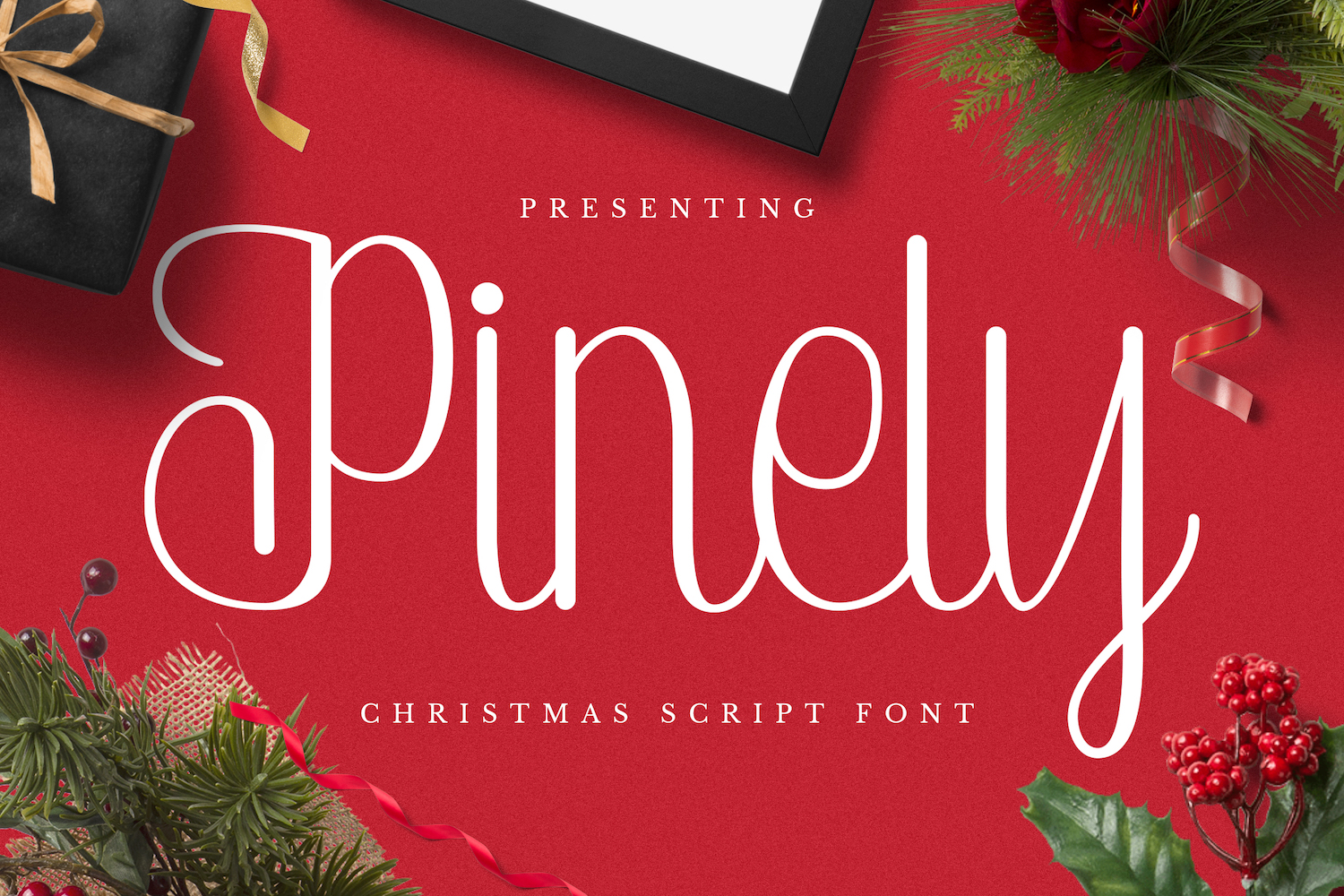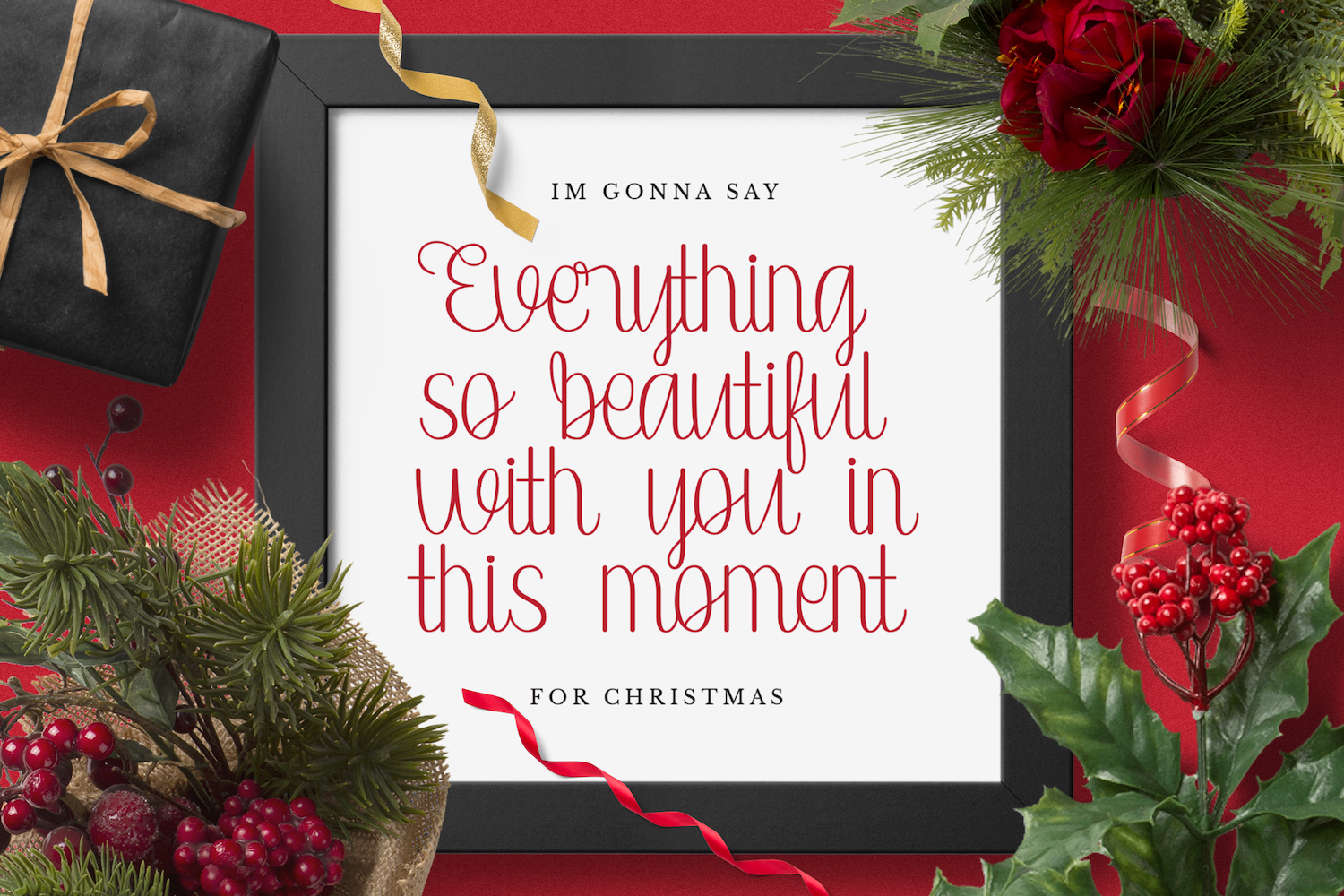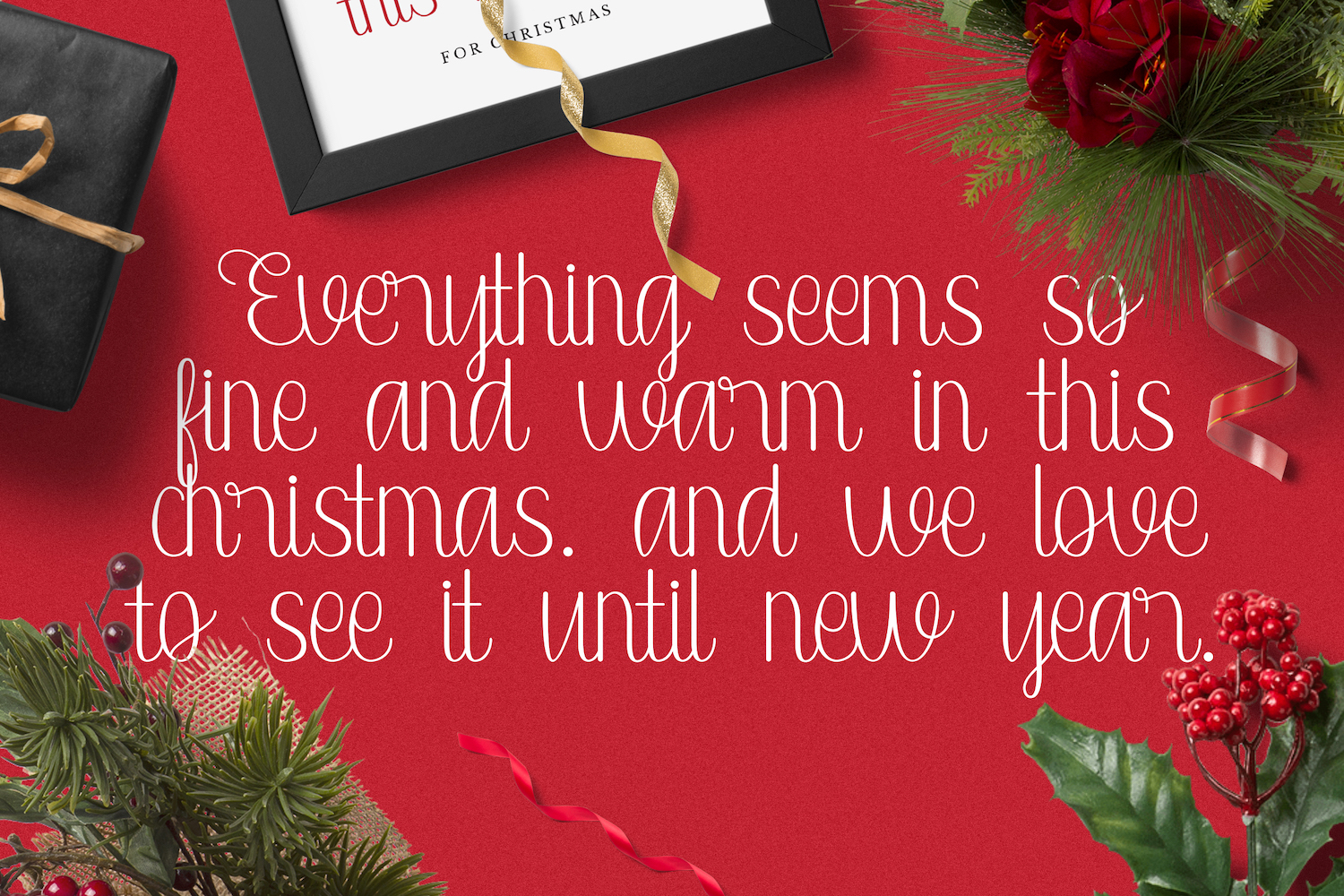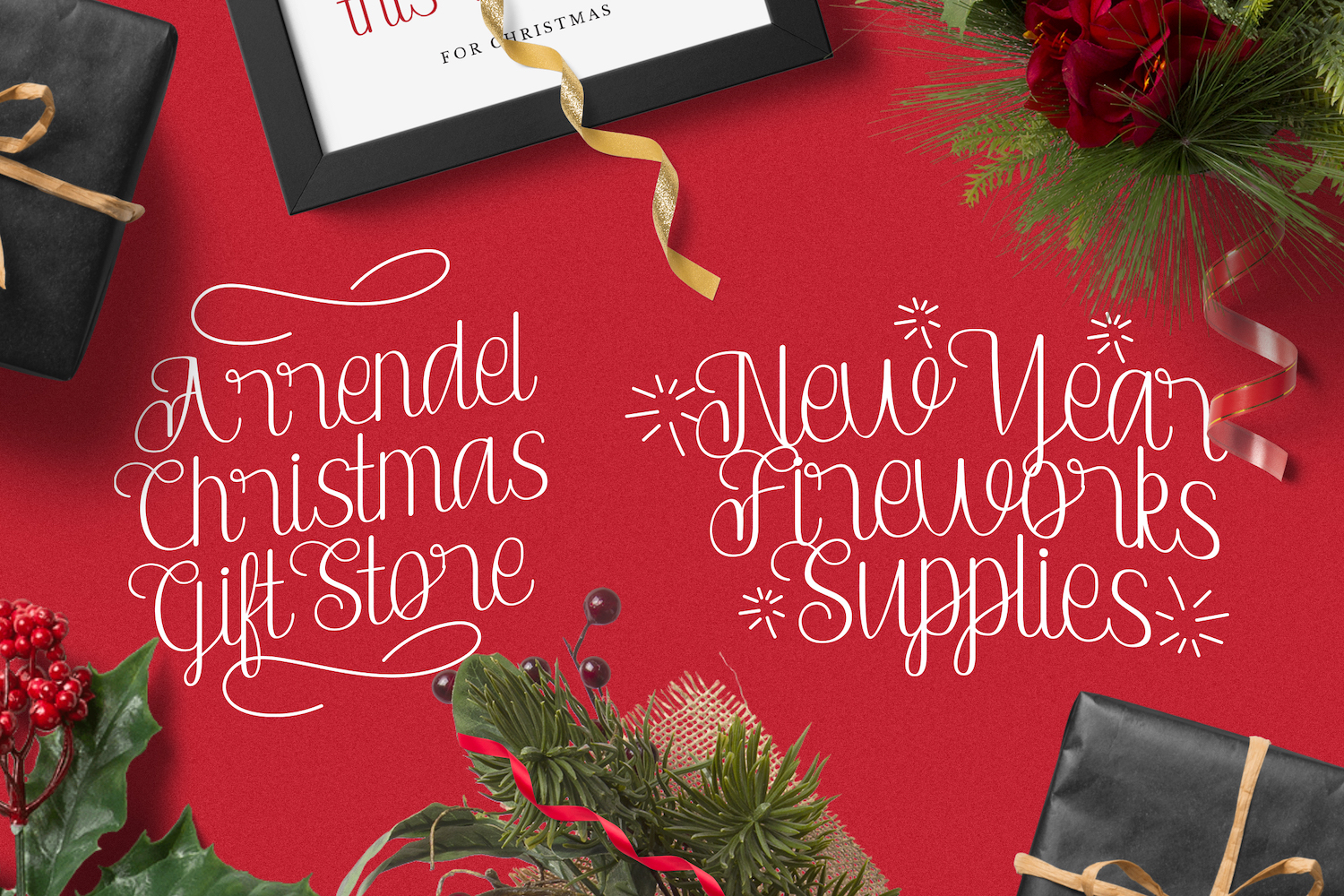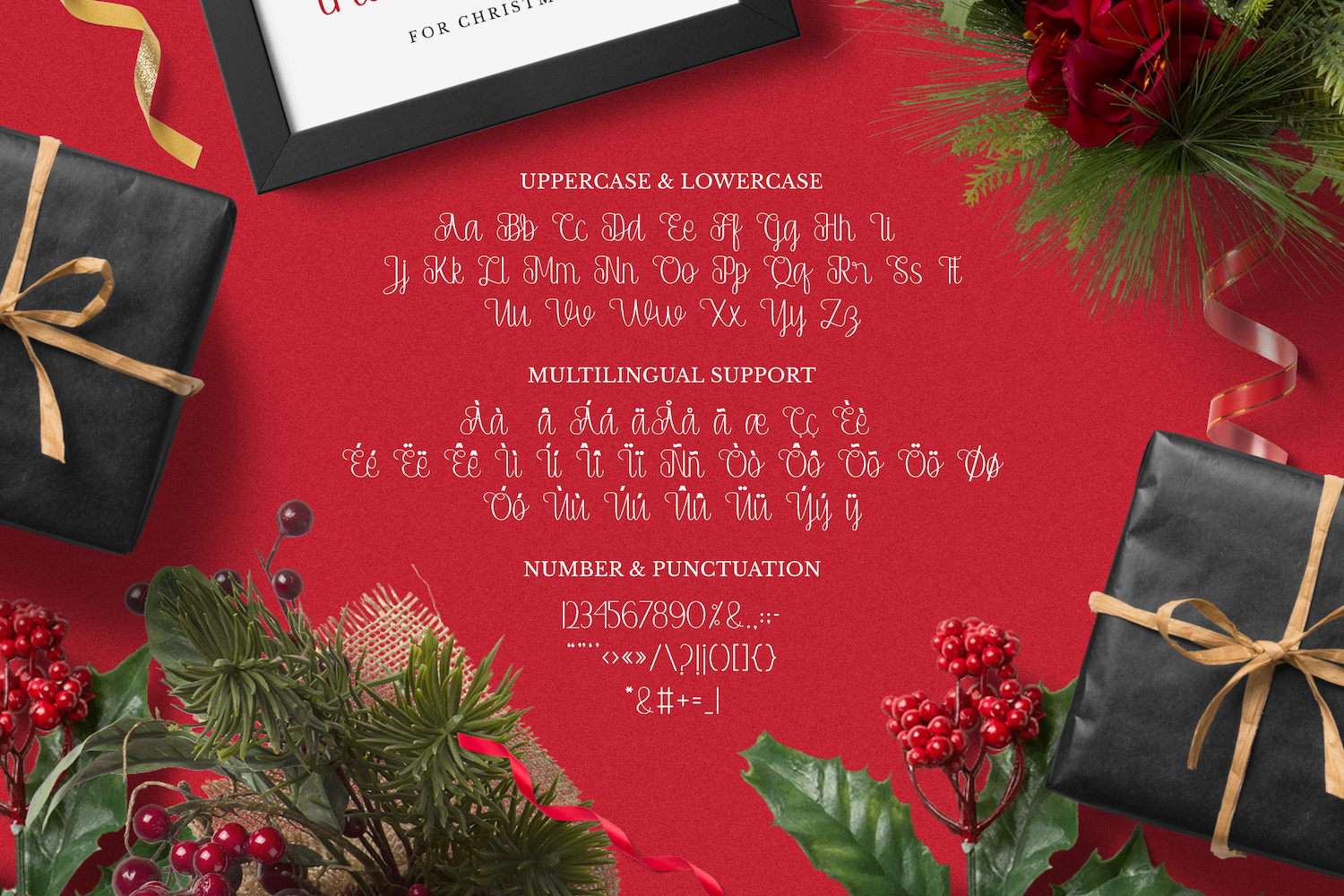
Pinely is a charming Christmas script font that radiates warmth and festive elegance. With its smooth curves and delightful handwritten style, this font adds a personal touch to every holiday design. Whether you’re crafting a heartfelt greeting card, seasonal invitation, or a Christmas quote, Pinely brings softness and grace to your project.
Perfectly suited for holiday branding, gift tags, and social media graphics, Pinely combines simplicity with a touch of whimsy. It comes with full uppercase and lowercase sets, multilingual support, and a wide range of punctuation. Making it both beautiful and versatile for various creative needs.
Pinely